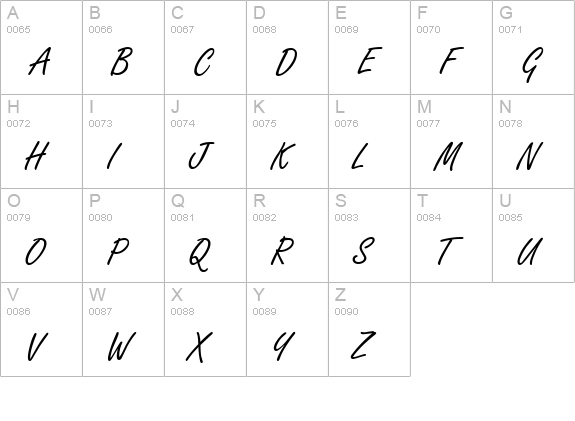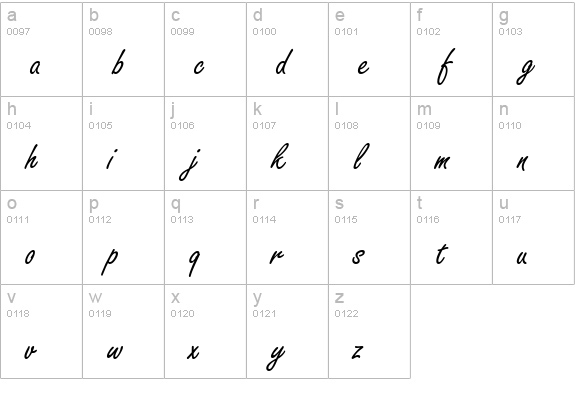
Grisette Font Details
Experience the beauty and elegance of Grisette font, a versatile typeface that effortlessly blends sophistication with modernity. With its delicate curves and clean lines, Grisette exudes a sense of refined grace that is perfect for a wide range of design projects. Whether you're working on branding, editorial design, or any other creative endeavor, Grisette is sure to make a lasting impression. What makes Grisette even more appealing is that it is completely free to download at FontsMarket.com. This means that you can add this exquisite font to your collection without any cost, making it an invaluable resource for designers and creatives alike. Don't miss out on the opportunity to elevate your designs with the timeless charm of Grisette font. Download it today and let your creativity soar.